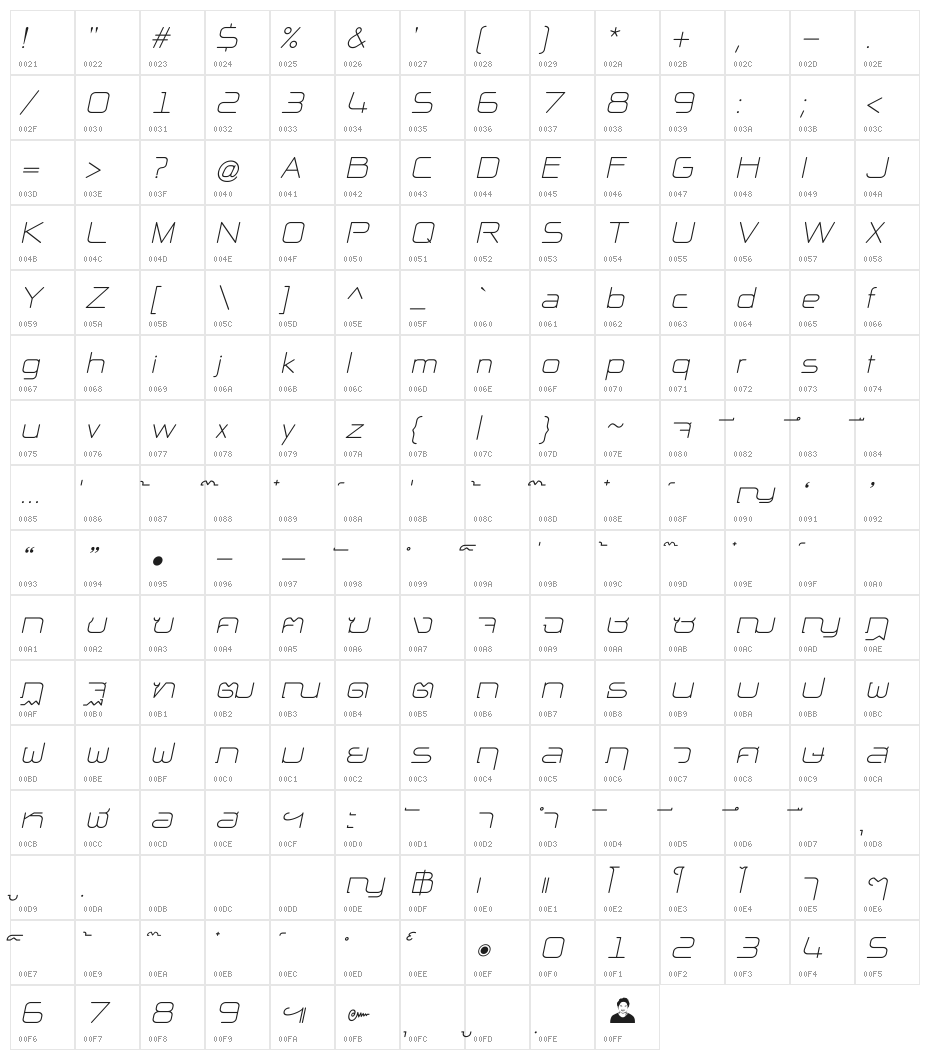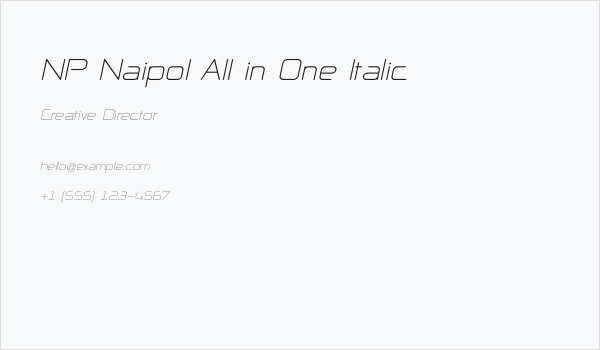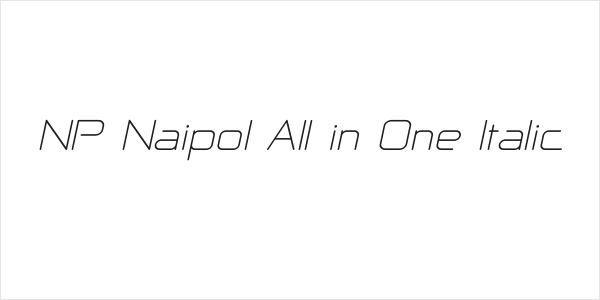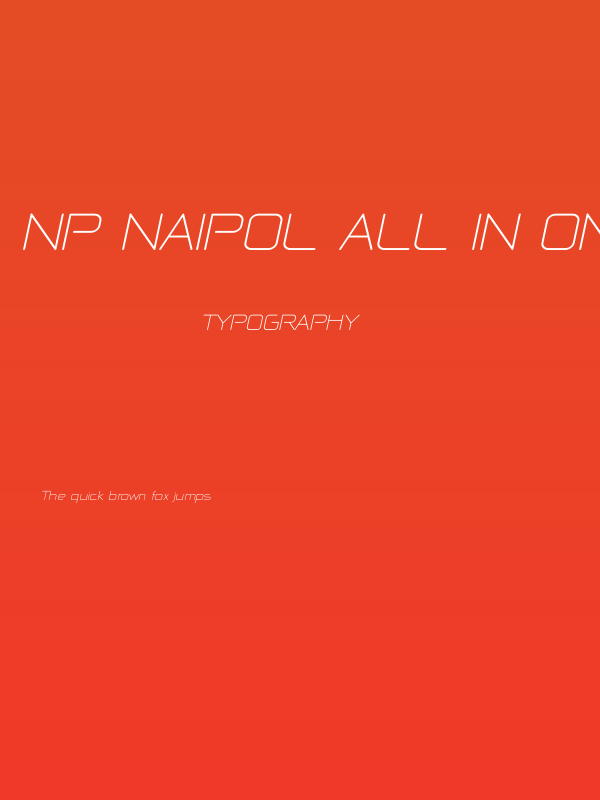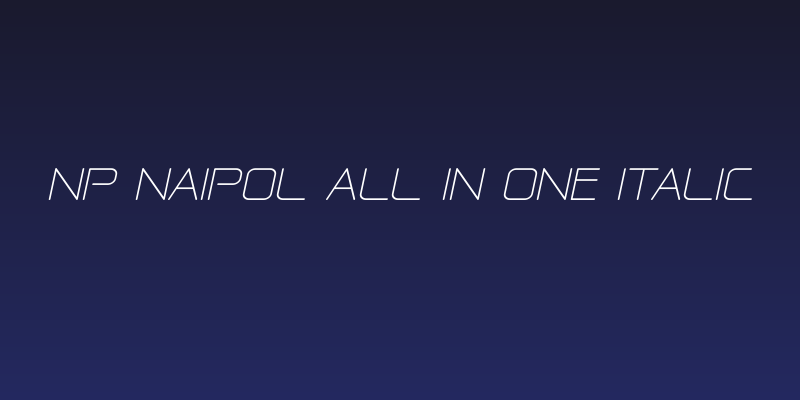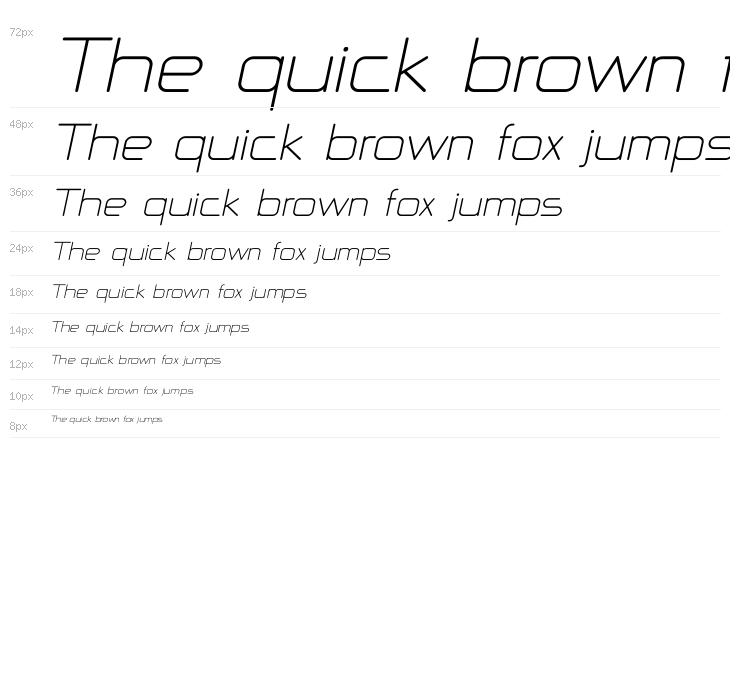
NP Naipol All in One Italic Font
NP Naipol All in One Italic Description
This font features a sleek, modern design with a distinct italic slant, giving it a dynamic and forward-moving appearance. The characters are crafted with a geometric precision, characterized by clean lines and a minimalistic aesthetic. The uppercase and lowercase letters maintain a consistent style, with rounded edges and a uniform stroke width that enhances readability. The numerals and special characters are designed to complement the alphabet, maintaining the same sleek and modern feel. The overall design is both functional and stylish, making it suitable for a variety of applications.
| Use Case | Headlines, Logos, Editorial Design |
| Proposed Projects | Ideal for modern branding, tech-related projects, and sleek editorial designs. |